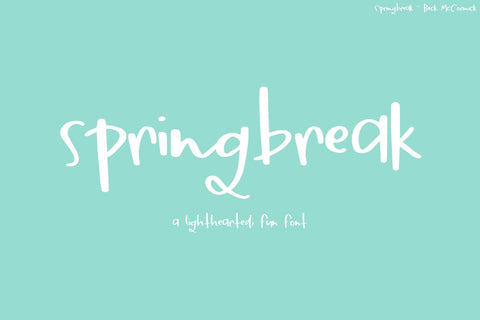
The Crafter's Font Bundle by Beck McCormick
Introducing The Crafter's Font Bundle, featuring 26 fonts that are perfect for makers, crafters, and designers that want a light-hearted, playful look in their designs. These cuties were hand-lettered, giving it that extra-special handmade touch.